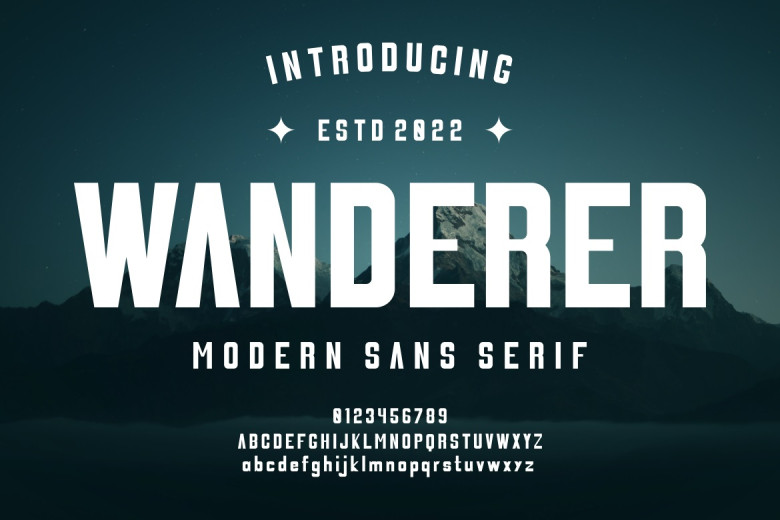
Wanderer Font
WANDERER – Modern Font is a bold and authentic sans serif. It is suitable for any branding project like logo, t-shirt printing, Product, and many more. Outstanding in a wide range of contexts.
Wanderer Sans Serif Font